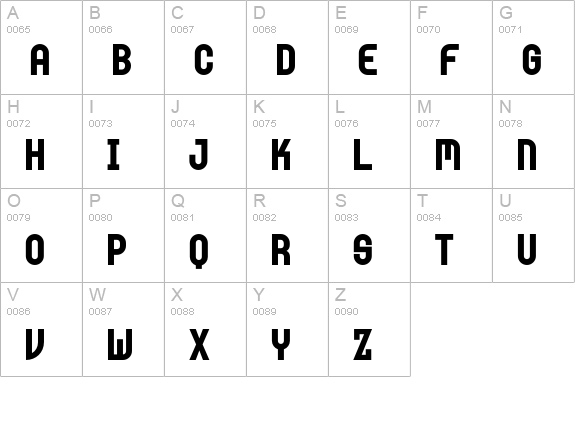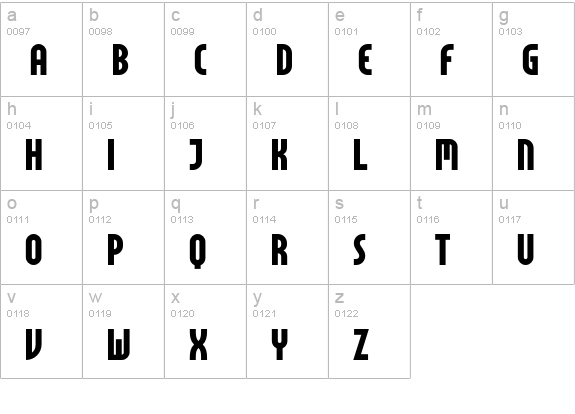
Introducing Tokyo-OneSolid, a remarkable font that combines elegance and modernity. This font is perfect for various design projects, from branding and advertising to website headers and product packaging. With its clean lines and sleek curves, Tokyo-OneSolid exudes a sense of sophistication and professionalism. What's even better is that Tokyo-OneSolid is free! Yes, you read that right. This incredible font is freely available to download at FontsMarket.com. Whether you're a professional graphic designer or a hobbyist looking to add a touch of style to your creations, Tokyo-OneSolid is the perfect choice. With Tokyo-OneSolid, you'll have access to a wide range of characters and symbols, allowing you to create stunning typography designs that stand out from the crowd. The versatility of this font ensures that it can be used for both formal and casual projects, making it a must-have for any designer's toolkit. Not only does Tokyo-OneSolid offer exceptional aesthetics, but it also boasts excellent readability. Each letter is meticulously crafted to ensure legibility, even at smaller sizes. This means that your message will be delivered with clarity and impact, no matter how it's displayed. So why wait? Download Tokyo-OneSolid now and experience the freedom to create beautiful designs without any cost. With its modern and stylish appeal, this font will elevate your projects to new heights. Don't miss out on this incredible opportunity to enhance your designs with the elegance of Tokyo-OneSolid. Head over to FontsMarket.com and start downloading this amazing font today!